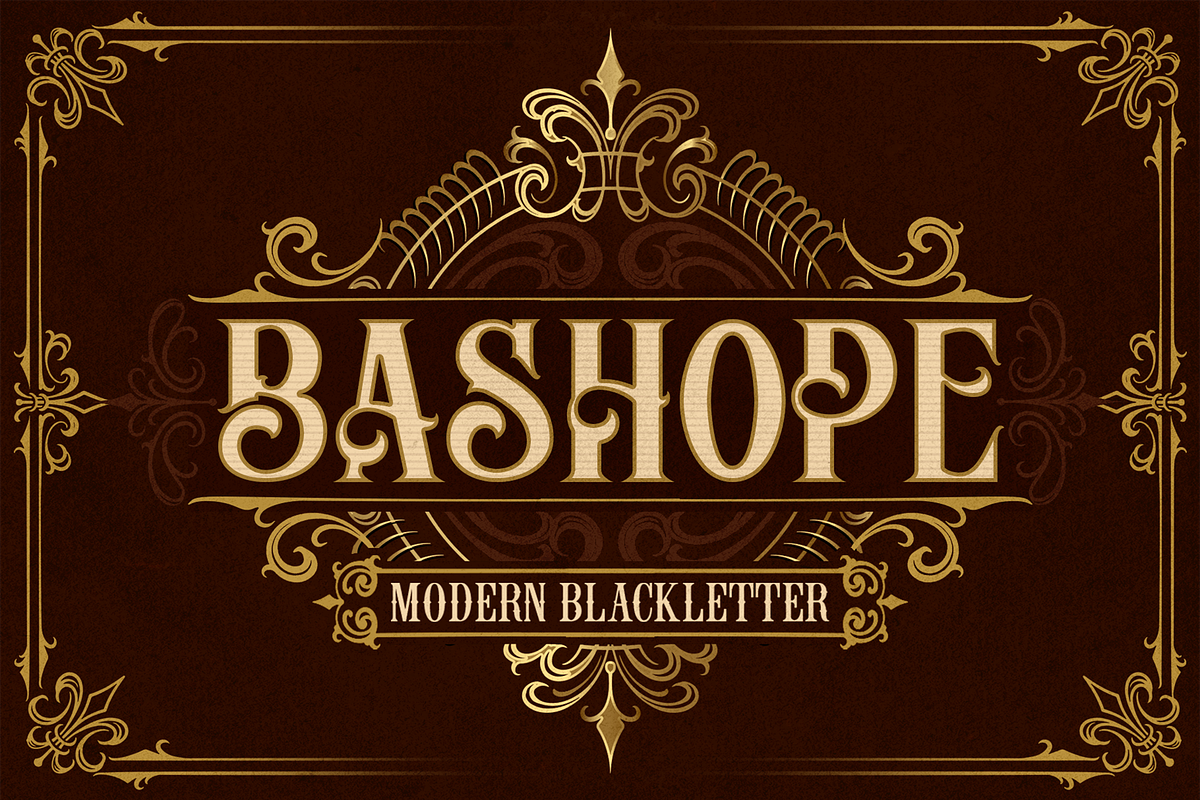
Please note that you must purchase this font for commercial use. You can download Bashope Vintage Font for free, strictly for personal testing purposes only. Bashope is a bold, stylish vintage font with retro appeal and a timeless aesthetic. With its strong, clean lines and classic vintage design, Bashope Vintage Font Free Download is perfect for branding, logos, signage, posters, t-shirt designs, and packaging that require a nostalgic, yet modern touch.
The font captures the essence of mid-century typography, giving your designs a rustic charm with a touch of sophistication. It includes uppercase and lowercase letters, numerals, punctuation, and multilingual support, making it adaptable to a variety of design projects.
Whether you’re designing a vintage-inspired brand or creating retro graphics, Bashope brings timeless flair and boldness to your typography.